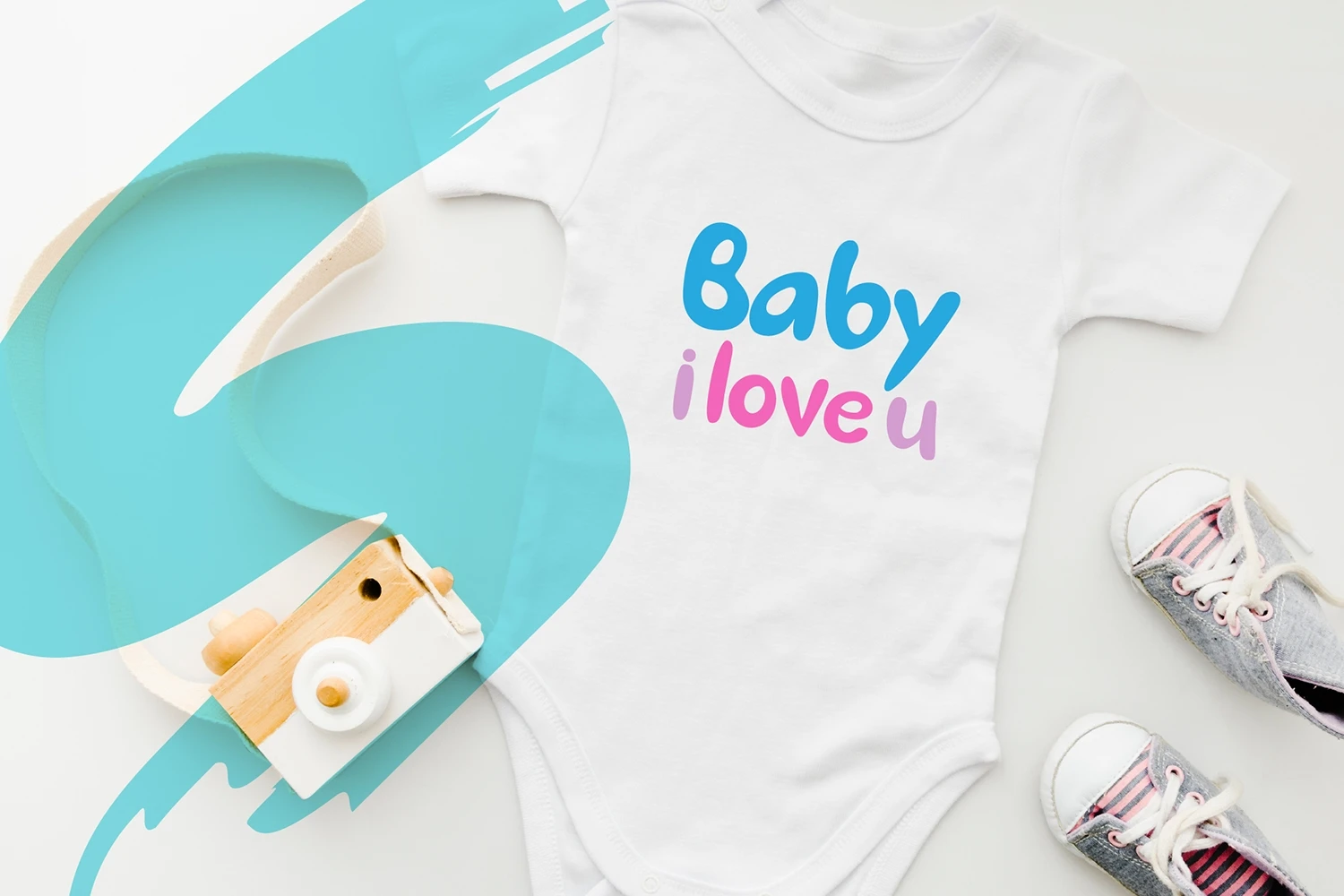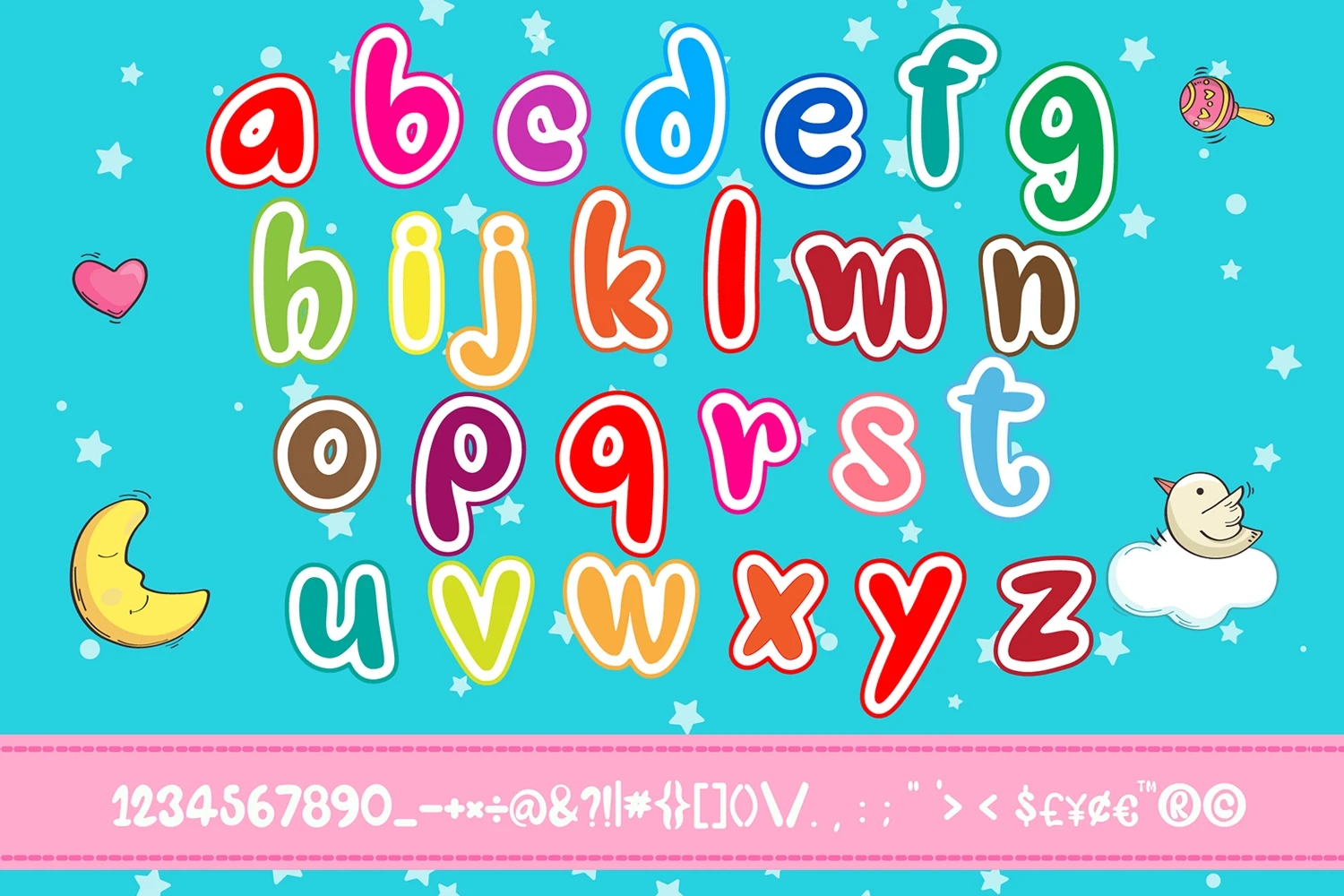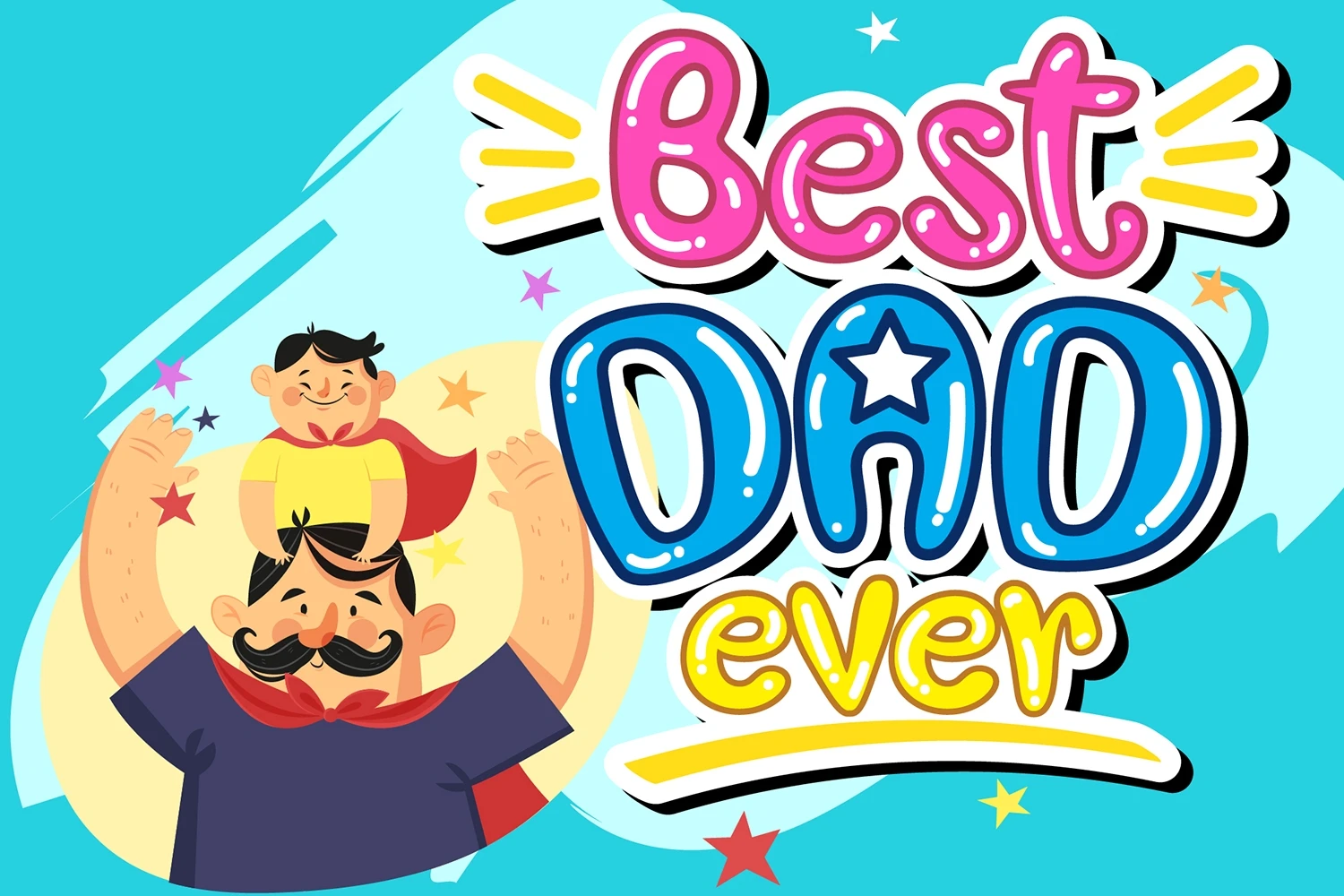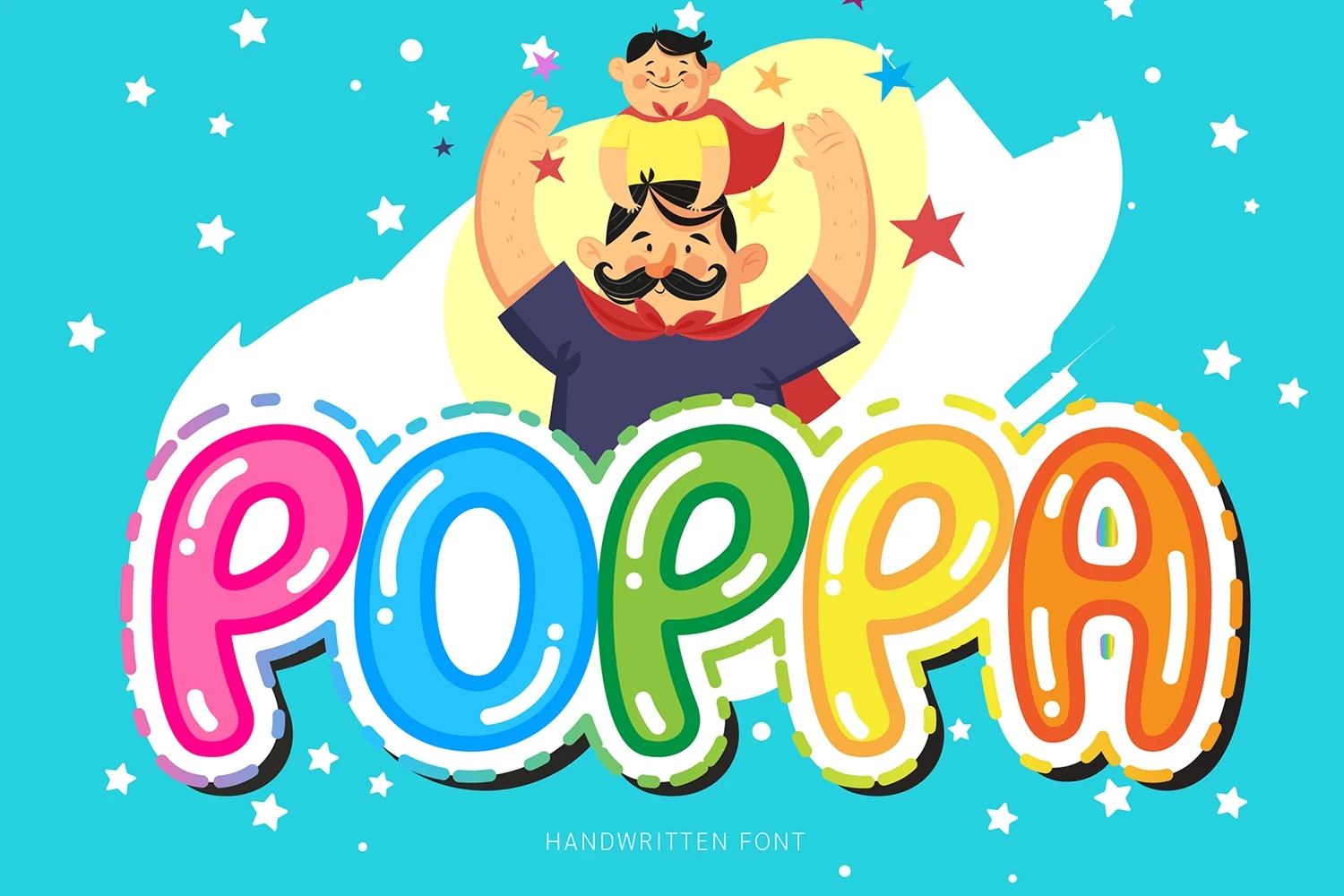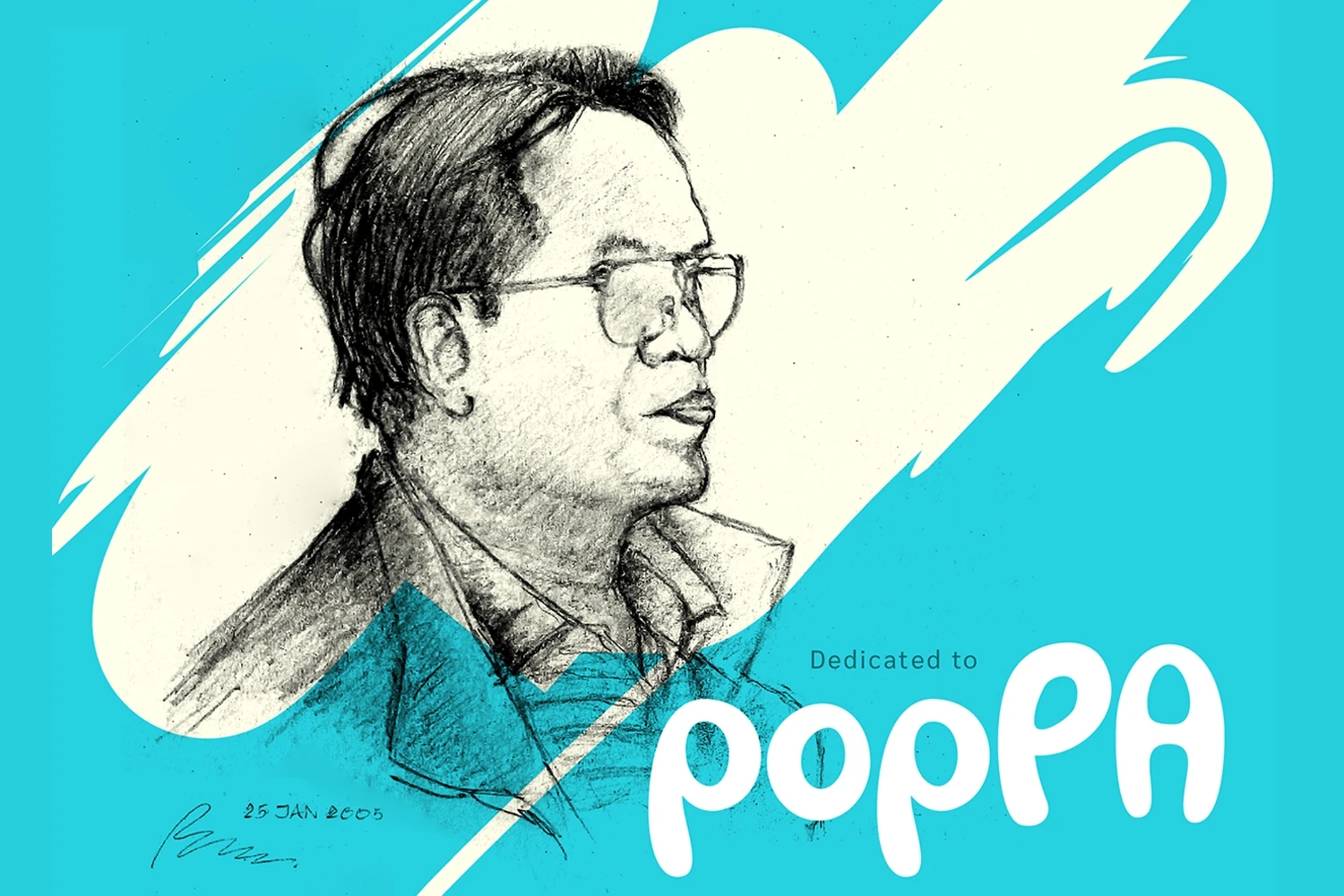
Poppa is a sweet display font. Its friendly feel makes this font incredibly versatile, fitting a wide range of contexts. Add it to each of your kids or school project and notice how it brightens them up!